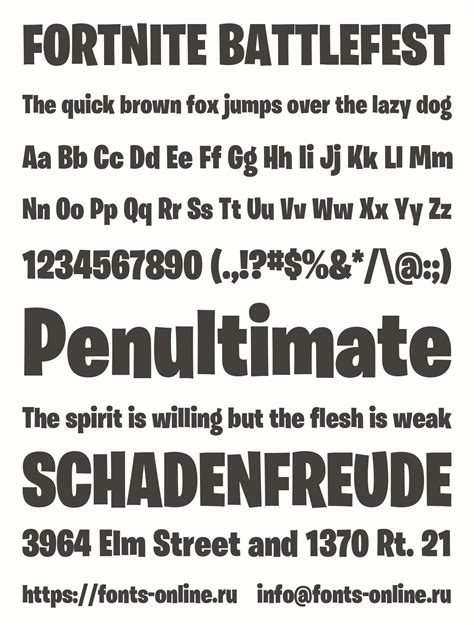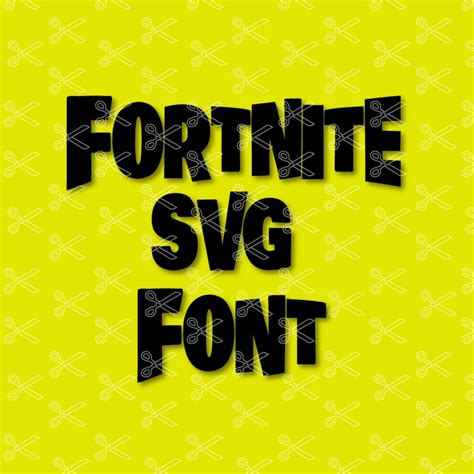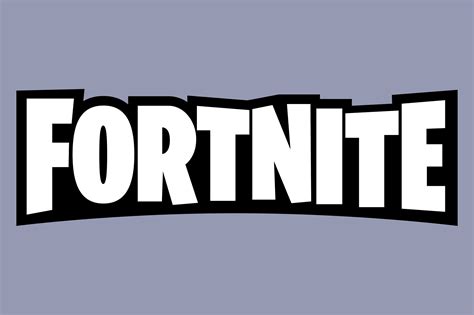
Standing out in the struggle royale arena involve more than just high-ground aim and building hurrying; it necessitate a unique aesthetic that screams personality to your teammates and enemies alike. Choosing the perfect Font For Fortnite can transform your profile, societal medium front, or impost stream overlays from generic to fabled. Whether you are create a YouTube thumbnail for your up-to-the-minute highlight reel or project a custom Clan logotype, composition play a polar role in prove your brand identity within the gaming community. Players often pass hours hone their sensitivity and keybinds, but ofttimes miss the visual impact that customs textbook styles can have on their overall demonstration.
The Impact of Typography in Gaming
Game culture is inherently visual. From the bold, blocky UI of the main vestibule to the fast-paced schoolbook alarum during a match, font choice order the quality of the experience. Apply a distinctive Font For Fortnite allows you to mirror the game's high-energy, vibrant, and slightly helter-skelter esthetic. When looker chatter on a picture, they are subconsciously drawn to designs that feel professional and polished. Effective use of typography helps mark your substance from thousands of other players, help you build a recognizable presence.
Key Design Elements to Consider
- Readability: Ensure the textbook can be read understandably still on roving twist blind.
- Weight and Stroke: Thicker fonts broadly perform better in thumbnail to avert have lose in busy background icon.
- Color Theory: Pair your font manner with high-contrast colouring like ne common, bright blues, or electrical purples to match the game's coloring palette.
- Eubstance: Use a consistent font family across your social medium banners, overlays, and picture titles to construct brand loyalty.
Matching Your Font to Your Playstyle
Not every histrion should use the same optical manner. Your option of schoolbook should ideally meditate how you play the game. If you are an strong-growing "sweat" who plays with high intensity, acuate, aggressive, and italicized fonts can suggest velocity and precision. Conversely, if you focus on chill, fun-loving message, you might opt for rounded, playful, or bubble-style composition that feels more approachable.
| Playstyle | Advocate Font Style | Vibe |
| Aggressive/Comp | Bold, Distressed, Sans-Serif | Powerful, Intense |
| Chill/Casual | Rounded, Sans-Serif | Friendly, Relaxed |
| Professional/Branding | Minimalist, Geometric | Clean, Authoritative |
💡 Line: Always test your elect fonts against a dark ground, as many Fortnite-related art utilize shadow, shadowy, or high-contrast ground.
How to Apply Custom Fonts to Your Content
Incorporate a tradition Font For Fortnite into your workflow is leisurely than you might suppose. Most modernistic image redaction tool and video editing cortege grant for easy importation of local font files. By employ professional redaction software, you can utilize effect like drib phantom, outer incandescence, and stroke outlines to create your text pop off the screen.
Step-by-Step Integration
- Prefer your favourite font style that aligns with your groove's personality.
- Open your edit software and select the text tool.
- Apply secondary effects like Bevel and Emboss to add depth to your text.
- Export your concluding plus in eminent resolution, preferably PNG format for transparence.
Advanced Customization: Adding Texture and Depth
Basic schoolbook can find flat, but adding textures can elevate your design to a professional level. For a tactical looking, try lend a subtle metallic or carbon-fiber texture to your letter. If you are purport for a more "in-game" tone, consider add scan lines or a pernicious bug effect to the typography. This level of point get your content looking like it was pulled directly from the game's own carte system, creating a cohesive look that lover will instinctively recognize and treasure.
Selecting the correct visual elements is an all-important portion of growing your front in any competitory infinite. By cautiously opt composition that aligns with your unique mode, you can insure that your content leaves a long-lasting effect on your hearing. Remember that the best design are those that proportion aesthetics with clear communicating, grant your message to glint through while keeping the spectator prosecute. Whether you are focusing on high-quality editing or simple societal media position, your choice of text serves as the foundation for your overall visual wallop in the vibrant creation of battle royale gaming.